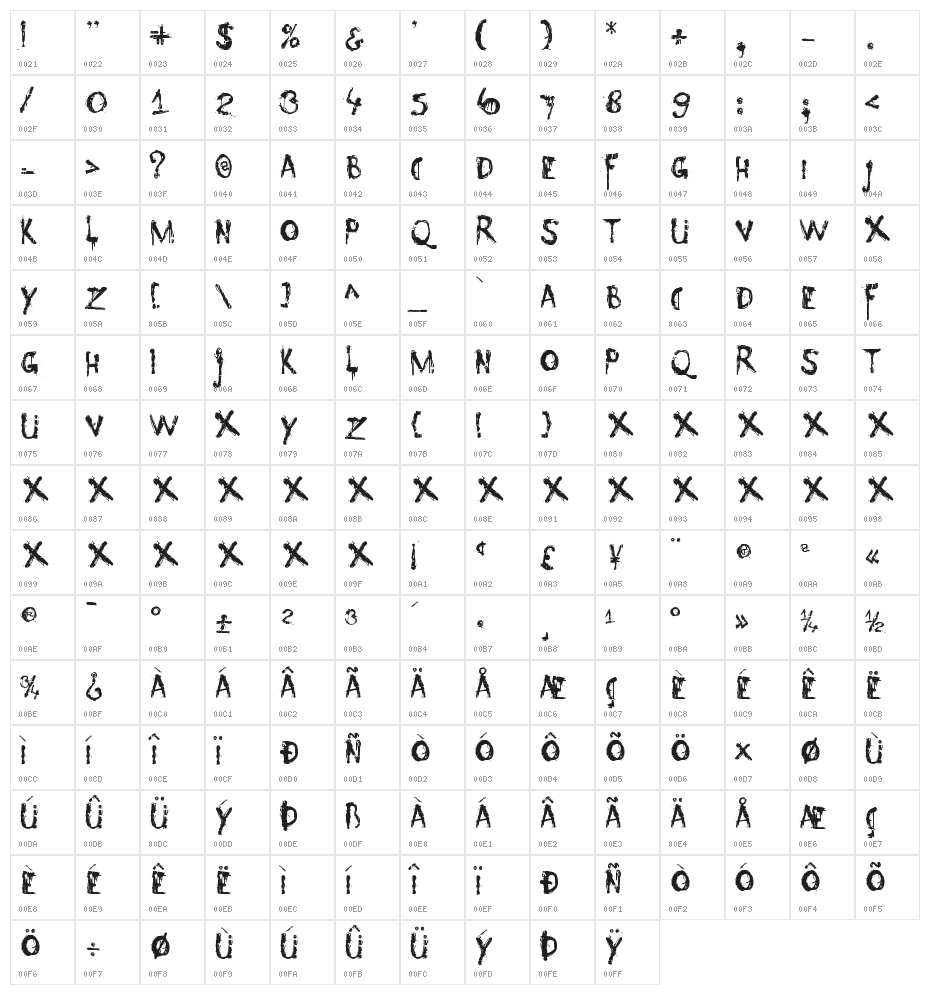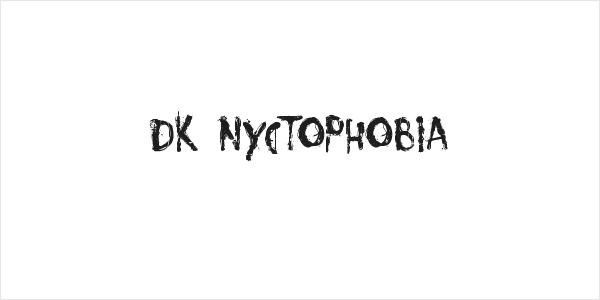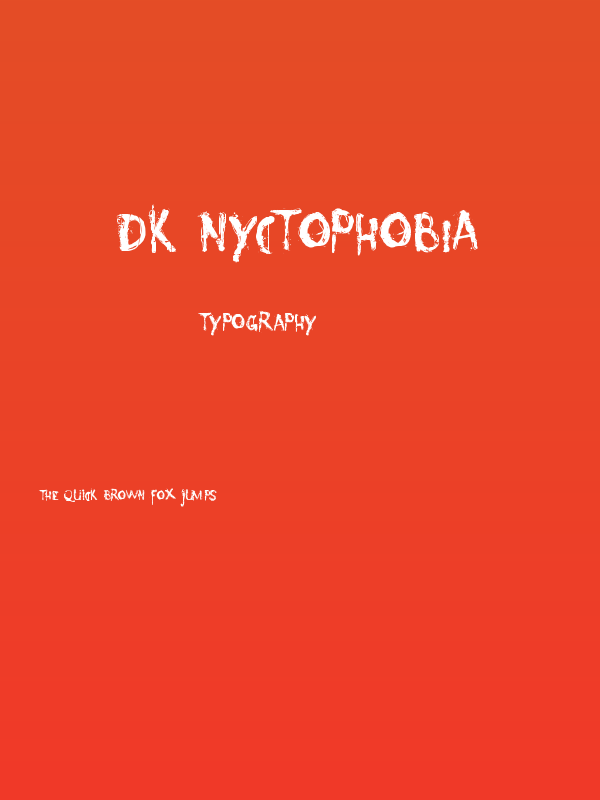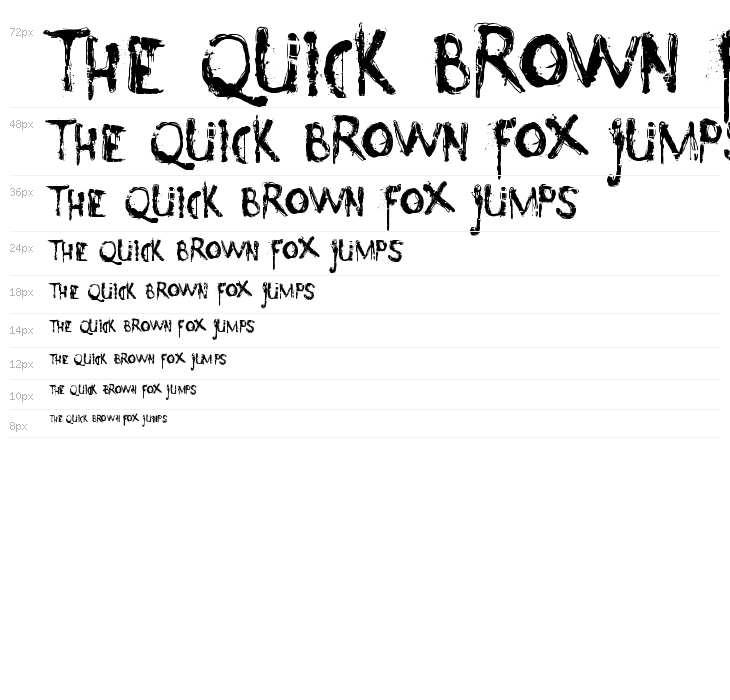
DK Nyctophobia Font
DK Nyctophobia Description
This font features a grungy, distressed style with a hand-painted appearance. The letters are irregular and uneven, with splatters and drips that give it a chaotic and edgy look. The uppercase and lowercase characters maintain this rugged aesthetic, making it ideal for designs that require a raw, urban feel. The numbers and special characters are equally distressed, ensuring consistency across all glyphs. This font's unique style is perfect for projects that aim to convey a sense of rebellion or nonconformity.
| Overall Style | Grunge, Urban, Edgy |
| Use Case | Headlines, Posters, Branding |
| Proposed Projects | Ideal for album covers, streetwear branding, horror movie posters, and edgy graphic designs. |